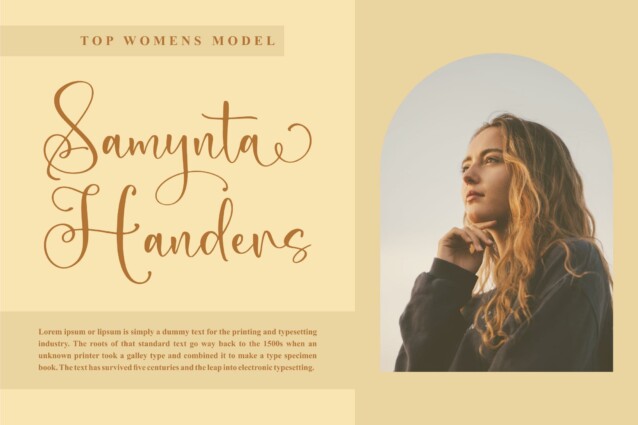
Dahlya Calisa Script Font
Dahlya Calisa Script Font is a suitable for any projects such as: logos, branding projects, homeware designs, product packaging, mugs, quotes, posters, shopping bags, t-shirts, book covers, name card, invitation cards, greeting cards, label, photography, watermark, special events, and all your other lovely projects that need a beautiful script taste.